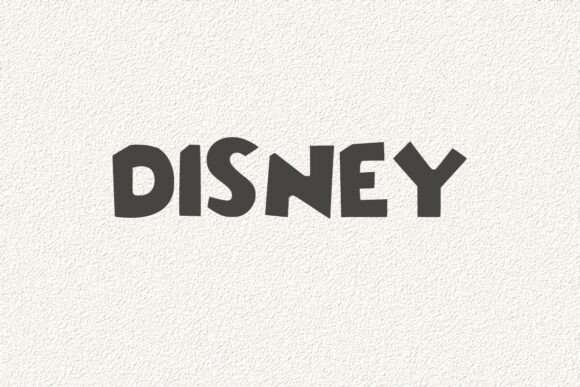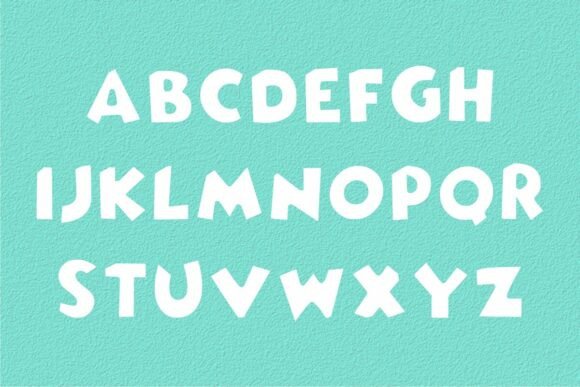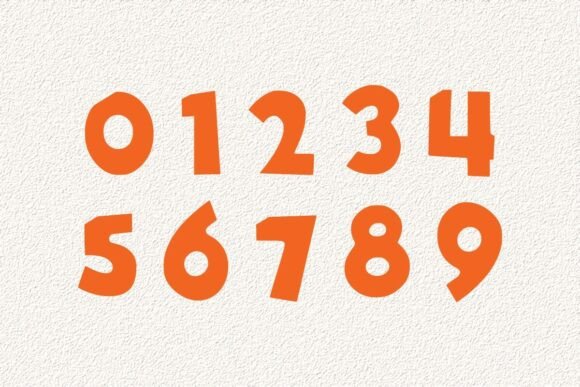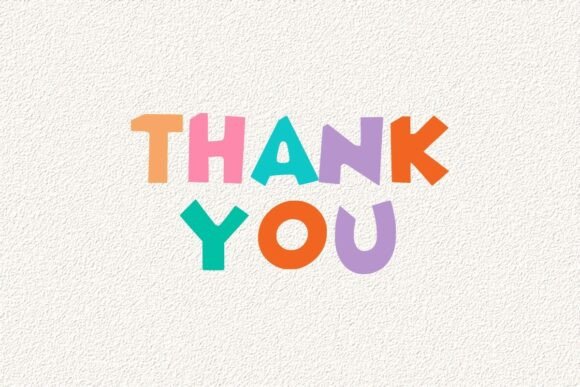
The Perfect Companion for Your Creative Journeys
Have you ever found yourself lost in a world of imagination, surrounded by colorful characters and whimsical storylines? That’s where the magic begins, and for many creatives, it’s a moment they eagerly await. Whether you’re a designer, artist, or simply someone who loves to express themselves, the spark of creativity is what drives us to push boundaries and bring our ideas to life.
Enter Funky Comic Font, a delightful display font that’s sure to become your new best friend. This charming typeface is designed to add a playful touch to any project, making it the perfect companion for your creative adventures. With its childlike allure and effervescent personality, Funky Comic Font is a valuable addition to any designer’s toolkit, offering endless possibilities for digital design, presentations, and more.
Funky Comic Font Key Features
- Size and Style: The font family includes multiple weights and styles, ranging from Thin to Black, with each style available in regular and italic variants, offering versatility for different design needs.
- Unique Characteristics: Funky Comic Font is designed with a playful, hand-drawn feel, featuring rounded edges, and subtle irregularities that evoke a sense of organic, handcrafted charm.
Funky Comic Font Review
I must say, I was intrigued by the Funky Comic Font at first glance. The bold, playful characters really stood out. Here are some things that work well: ✨ The font’s unique character set makes it perfect for comic books, graphic novels, and even digital comics. ✨ It’s also highly legible, even at small font sizes. ✨ The font’s quirky feel adds a touch of whimsy to any design project.
However, there are some limitations to consider: ⚠️ The font may be too playful for formal or professional designs. ⚠️ It can be challenging to read in certain situations, such as when the text is overlaid on a busy background. ⚠️ The font’s character set may not be as comprehensive as other fonts, which can limit its versatility.
Overall, I think the Funky Comic Font is a great choice for designers who want to add a touch of fun and personality to their projects. While it may not be suitable for every design scenario, it’s definitely worth considering for comic book-style projects or anything that needs a playful, lighthearted feel.
Here are some potential use cases for the Funky Comic Font:
- Comic books and graphic novels
- Digital comics and webcomics
- Children’s books and educational materials
- Playful advertisements and marketing materials
Use Funky Comic Font for:
- Comic book-inspired designs.
- Children’s book illustrations.
- Cartoon-style graphics.
For the most effective use of Funky Comic Font, experiment with different font sizes and styles to create a visually appealing design.